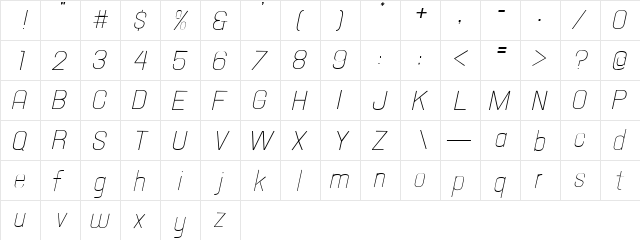
Hallandale Text Light Italic JL Regular Font Preview
Design Context for Hallandale Text Light Italic JL Typeface
Hallandale Text Light Italic JL is a composed and adaptable typeface that performs quietly and consistently across a wide range of design contexts. Its italic angle brings a sense of urgency and motion to the letterforms. Its slender proportions lend an understated elegance to any composition.
Pro Tip: Try Hallandale Text Light Italic JL for annotation and caption copy alongside an upright companion — the contrast in angle creates a dynamic but ordered typographic system.